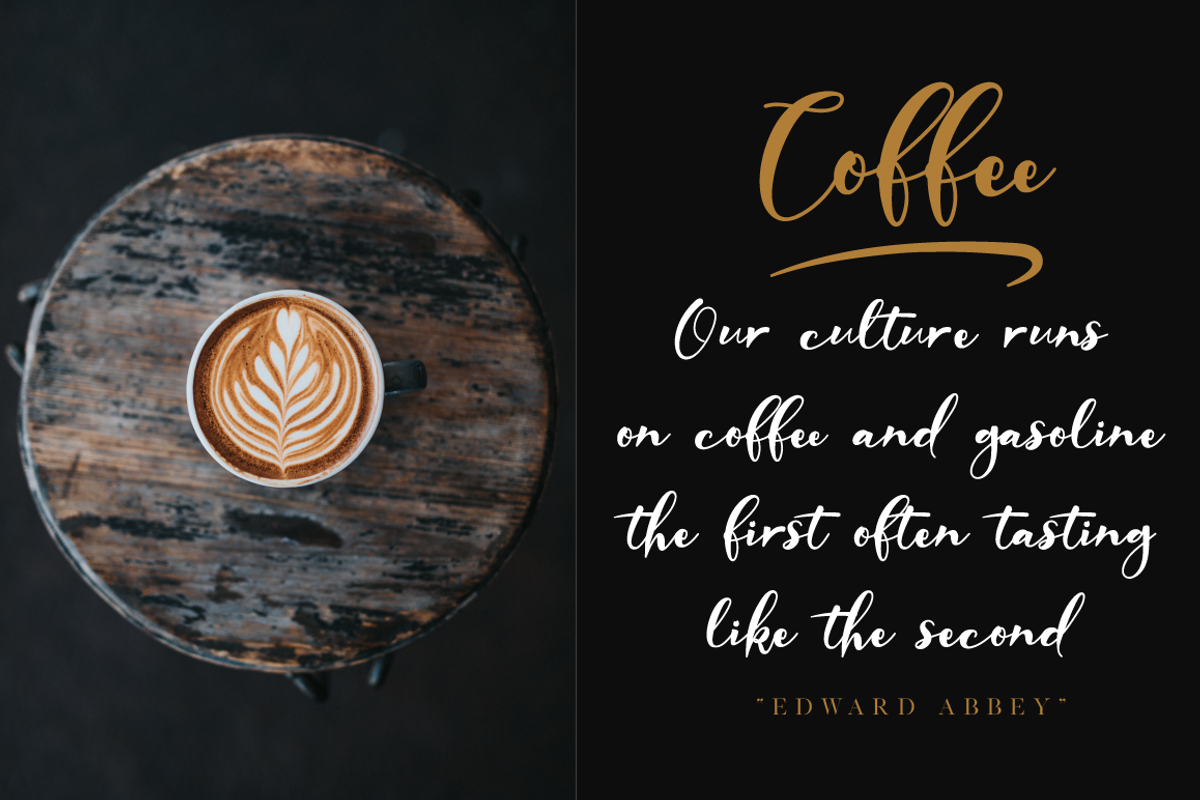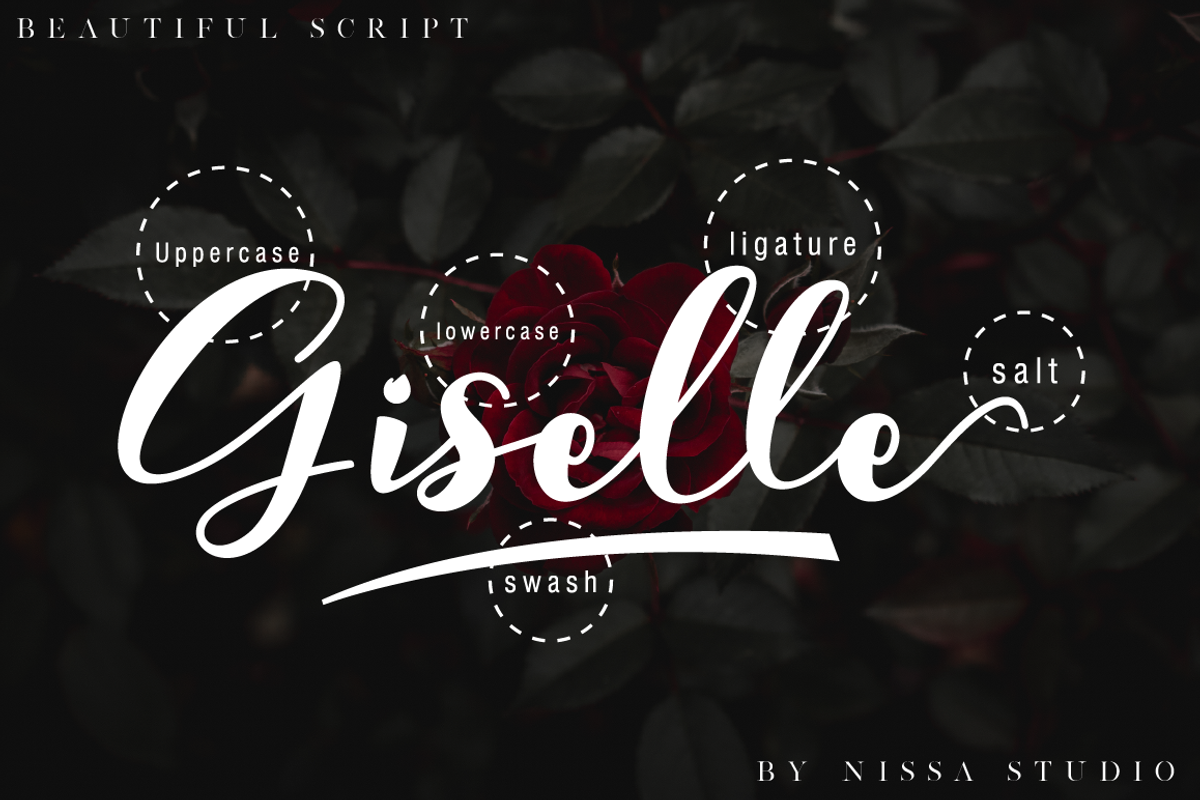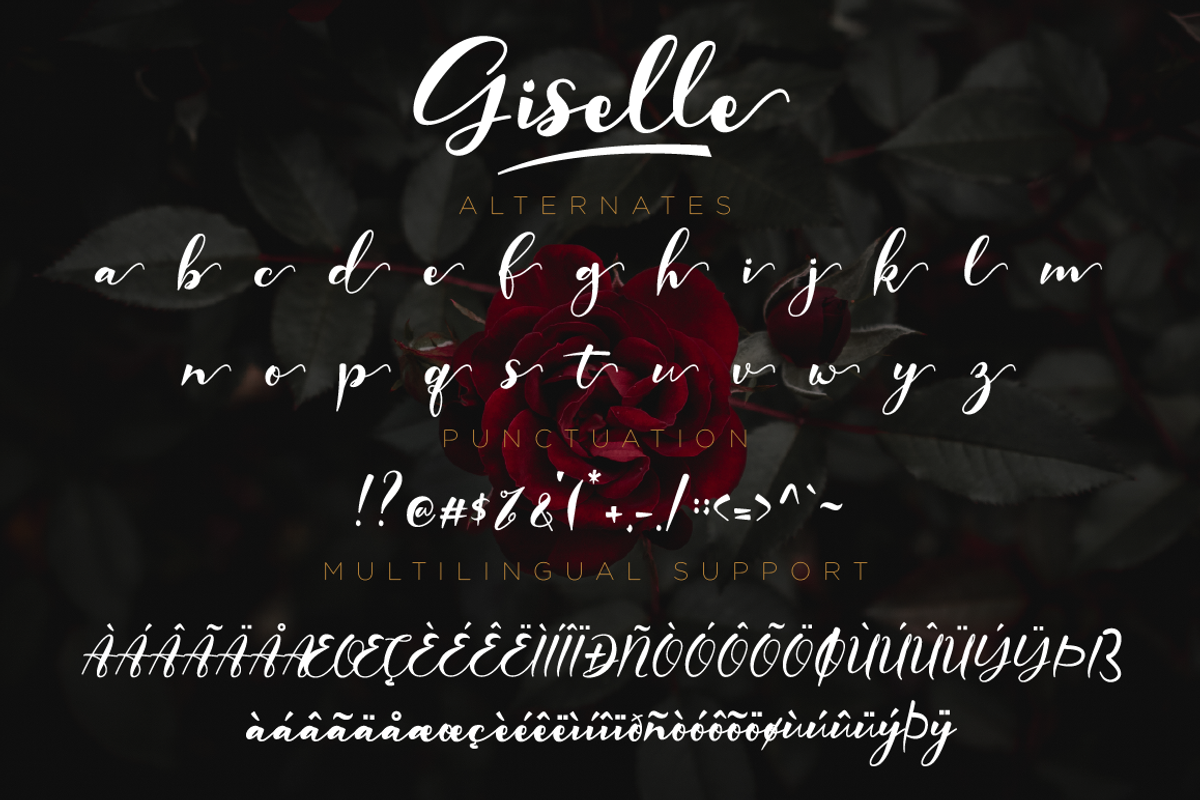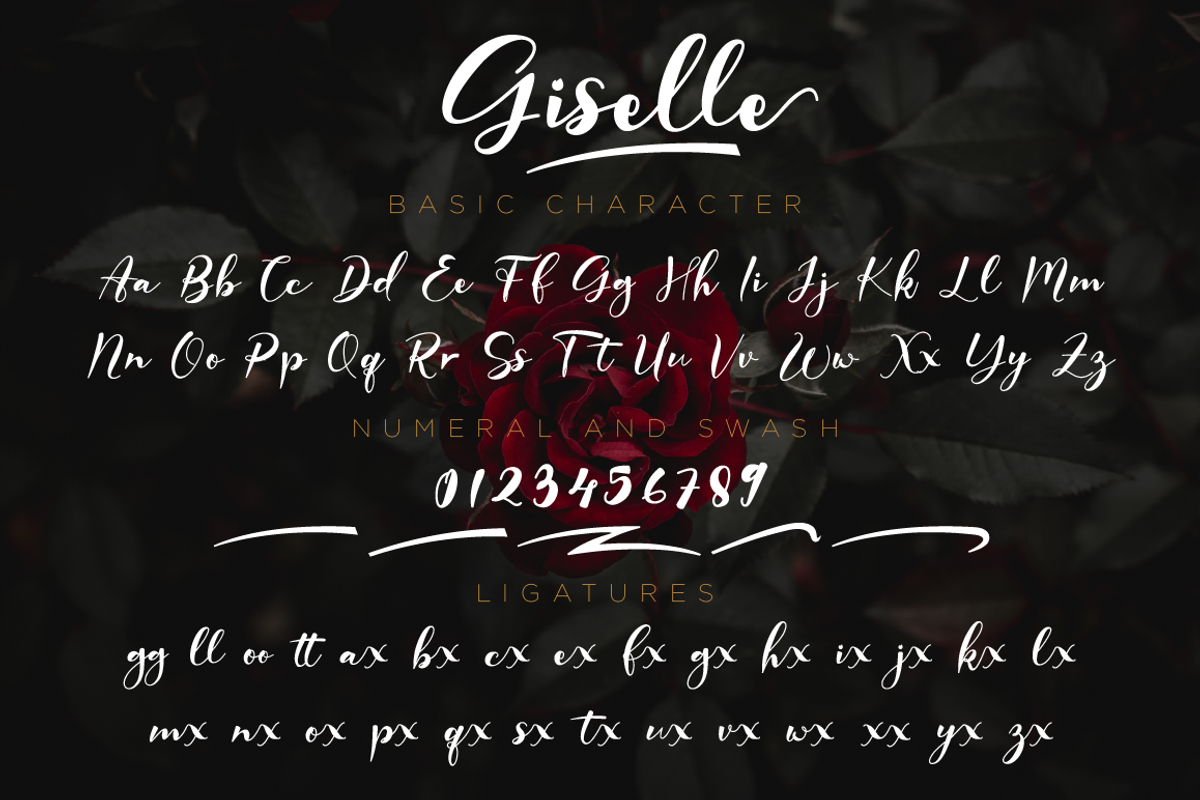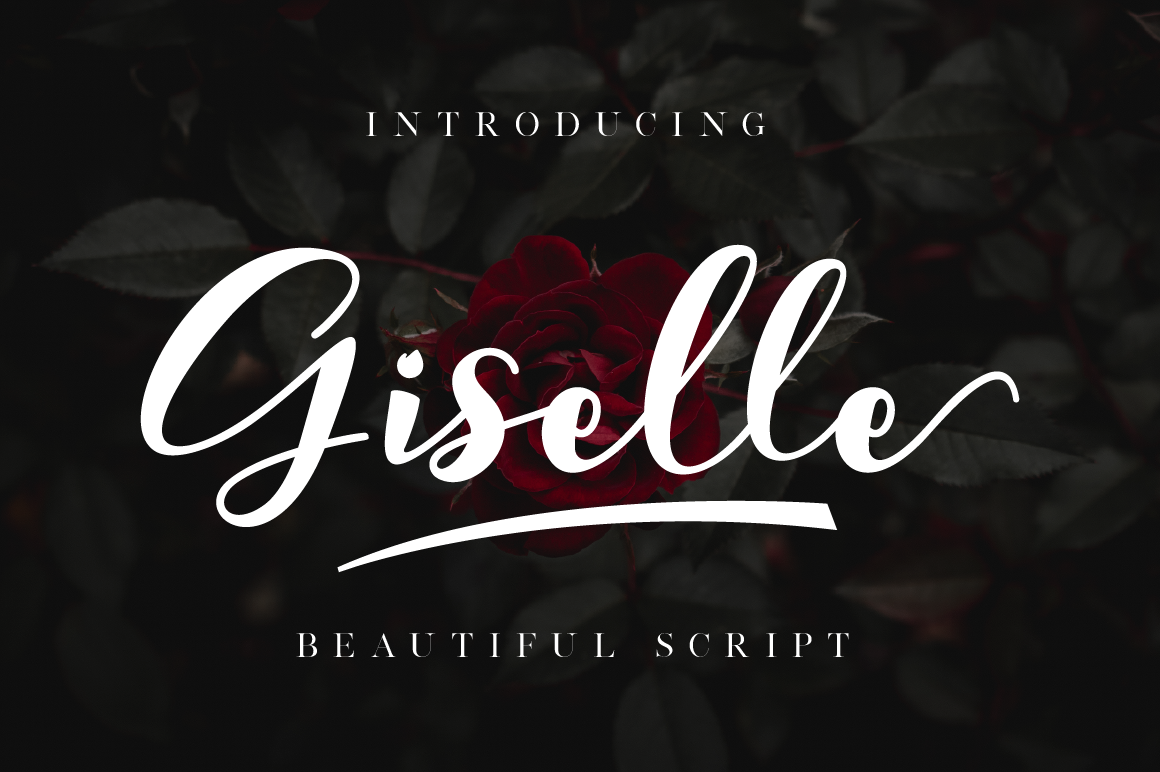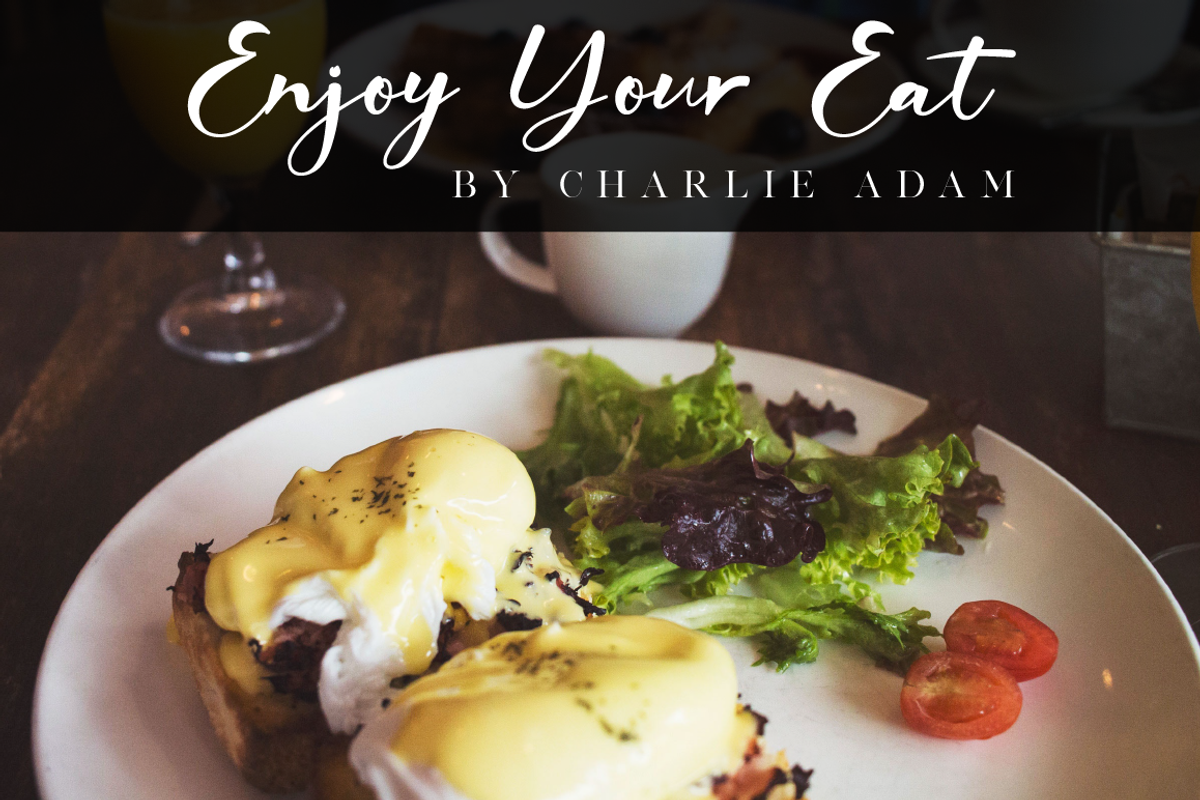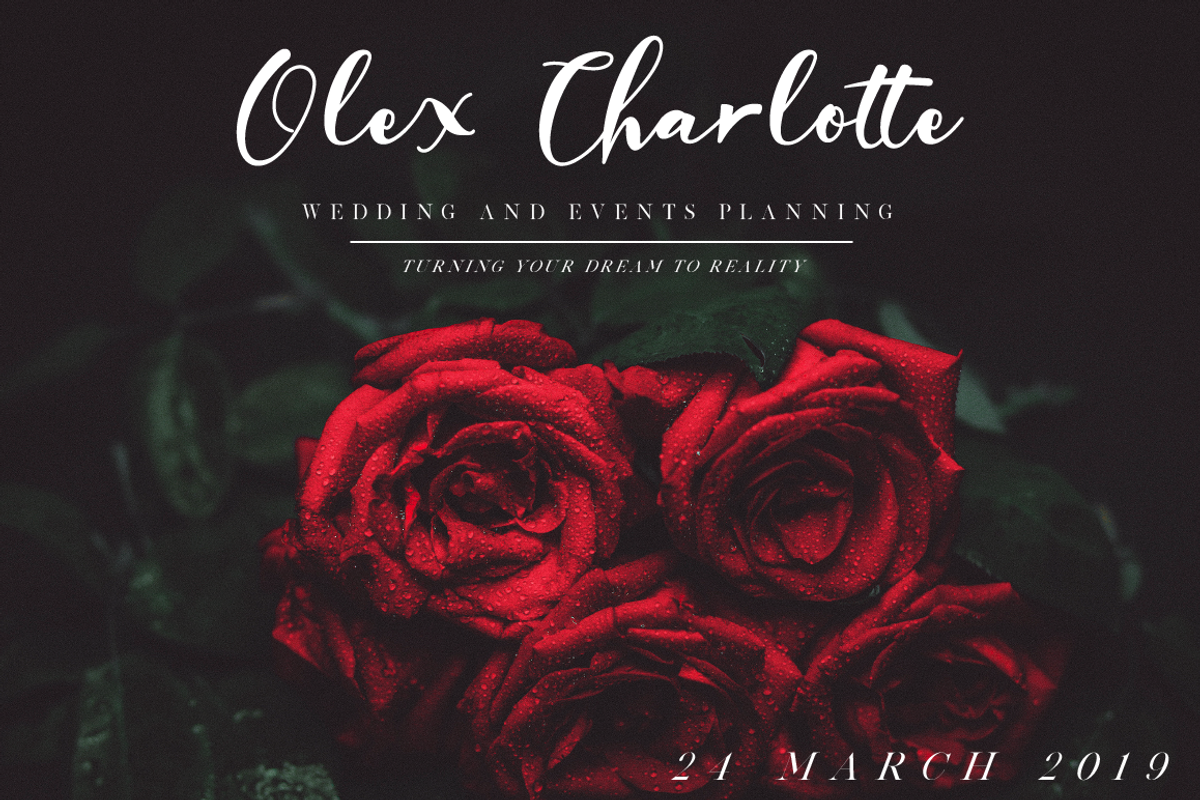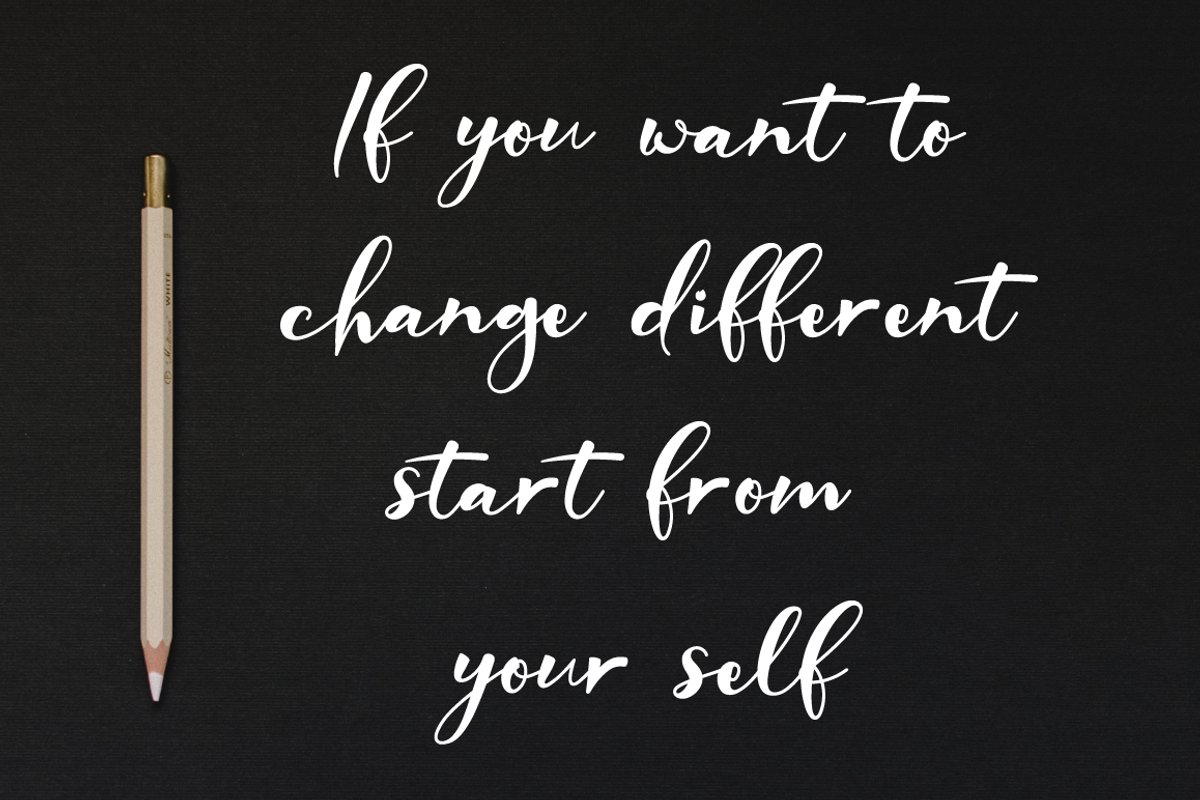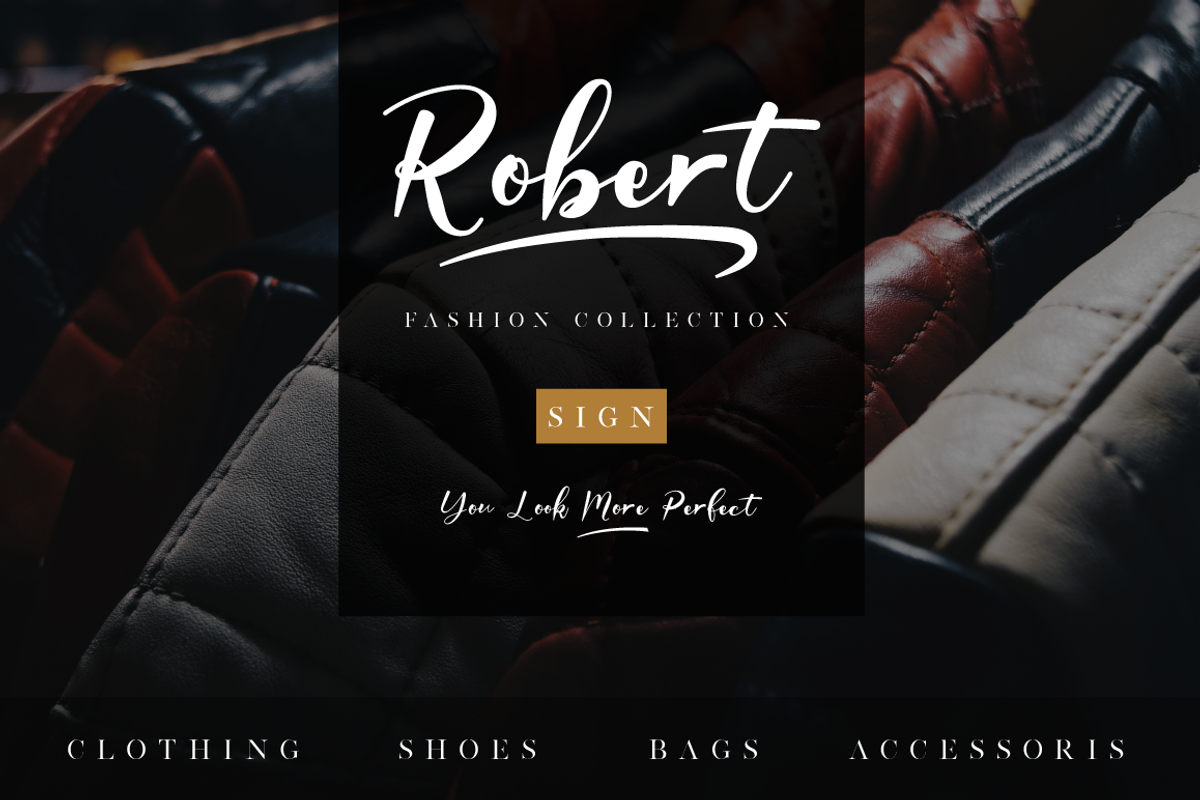
Giselle - Elegant Script Font
Giselle is a beautiful script font. It has a classy, elegant, and modern look which can be used for logos, branding, invitations, stationary, wedding designs, social media posts, and every other design that needs a handwritten touch.
- Modern Handwritten Font
- Beautiful Swash (Ending tail)
- Beautiful Titling (Beginning tail)
- Special Ligatures